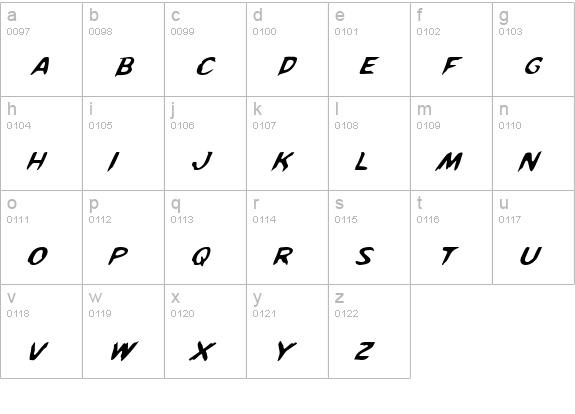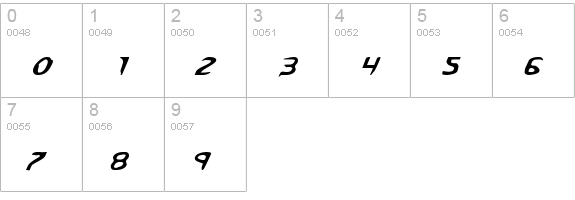
Kreeture Italic Font Details
Kreeture Italic is a distinctive, italic variant in the Kreeture typeface family \xE2\x80\x94 well suited to design and typography projects.
Introducing Kreeture Italic font, a stylish and modern typeface designed to add a touch of sophistication to your projects. With its sleek and elegant curves, Kreeture Italic exudes a sense of sophistication and charm that is perfect for a wide range of design applications. This versatile font is ideal for branding, invitations, posters, and more. What's even better is that Kreeture Italic is available for free download at FontsMarket.com. Yes, you read that right - you can easily access this stunning font without spending a penny. So why wait? Elevate your designs with Kreeture Italic and make a lasting impression today!